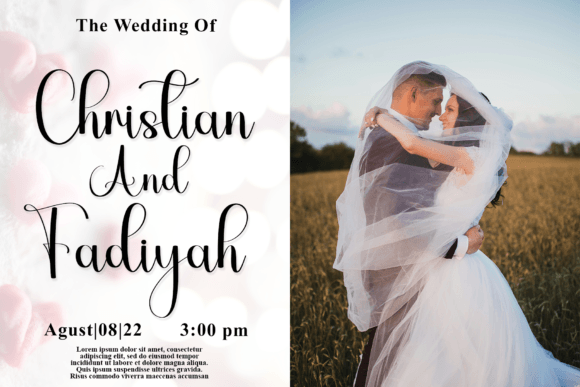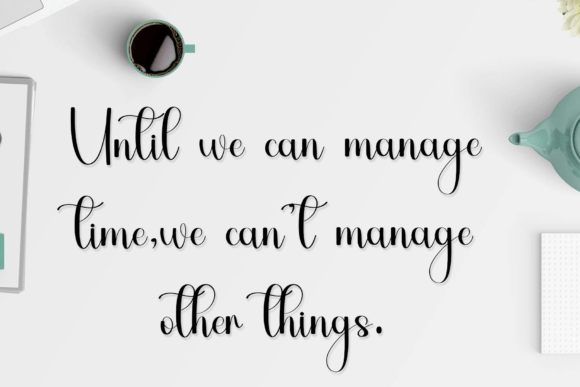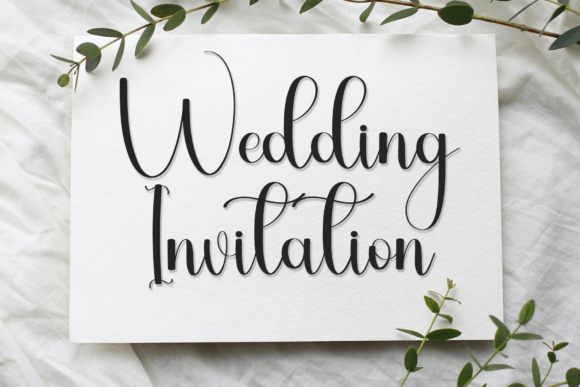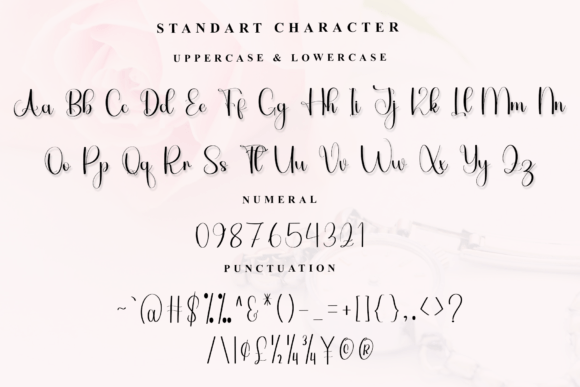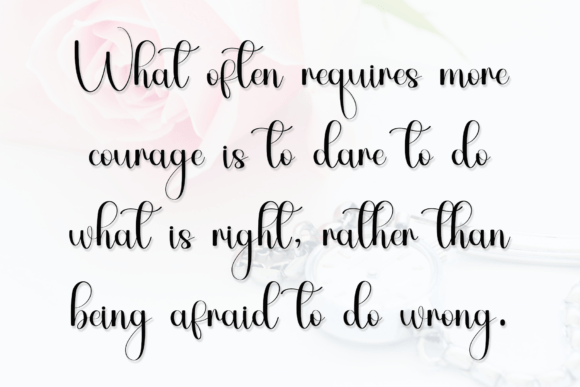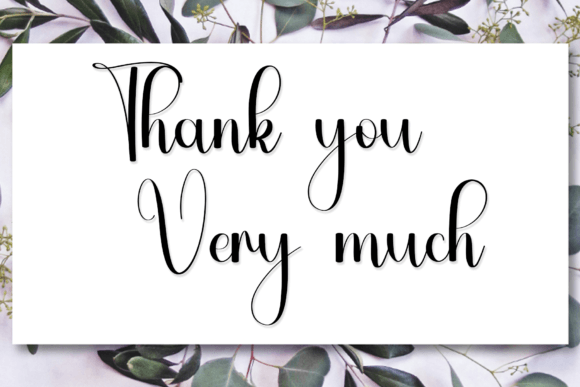
Introducing Adelia Font: The Ultimate Holiday Decorative Typeface
Are you looking for a font that embodies the spirit of the holiday season? Do you want to add a touch of charm and nostalgia to your designs? Look no further than Adelia Font, a festive and happy typeface that’s perfect for greeting cards, gift labels, and holiday-themed projects.
What Makes Adelia Font So Special?
Adelia Font is a unique and decorative typeface that captures the essence of the holiday season. Its distinctive elements and flair add a cheerful and nostalgic atmosphere to your words, making it perfect for designers and crafters who want to create eye-catching and engaging designs.
Adelia Font is specifically designed for holiday-themed projects, making it the perfect choice for designers and crafters who want to create festive and fun designs. Whether you’re creating greeting cards, gift labels, or holiday-themed posters, Adelia Font is the perfect choice.
One of the best things about Adelia Font is that it’s PUA (Private Use Area) coded, which means you can access all the amazing glyphs and ligatures easily. This makes it simple to use and incorporate into your designs, saving you time and effort.
Key Features of Adelia Font
- Festive and happy typeface that captures the spirit of the holiday season
- Decorative elements and unique flair add a touch of charm to your designs
- Perfect for greeting cards, gift labels, and holiday-themed projects
- PUA coded for easy access to glyphs and ligatures
- Cheerful and nostalgic atmosphere that’s perfect for the holiday season
Why Choose Adelia Font?
There are many fonts available that claim to be festive and fun, but Adelia Font stands out from the crowd. Its unique and decorative elements make it perfect for designers and crafters who want to create eye-catching and engaging designs. Plus, its PUA coding makes it easy to use and incorporate into your projects.
Tips for Using Adelia Font
Here are a few tips for using Adelia Font in your designs:
- Use it for holiday-themed projects, such as greeting cards, gift labels, and posters
- Pair it with other fonts to create a unique and eye-catching look
- Don’t be afraid to get creative and try new things – Adelia Font is perfect for experimenting with different design ideas